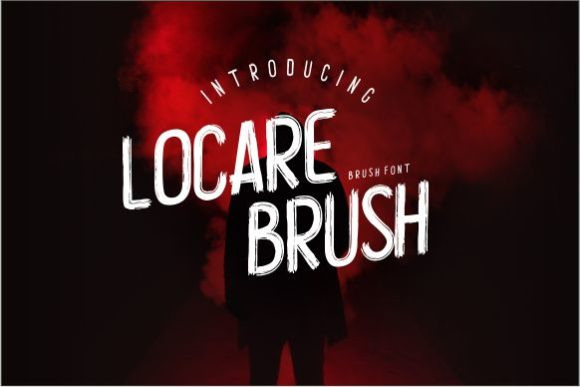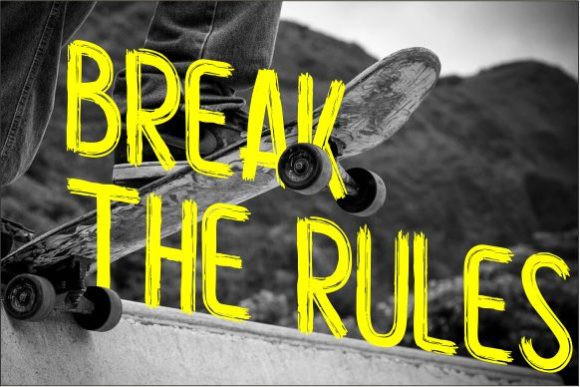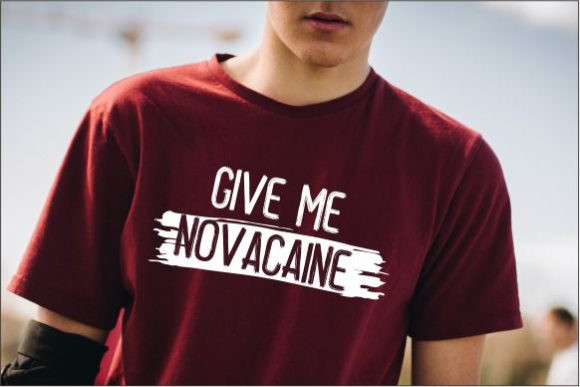
Locare Font
Locare Brush is a contemporary brush font featuring a stylish look. It can be used for various purposes such as headings, logos, invitations, t-shirt designs, greeting cards, posters, labels, book covers, brochures and much more!